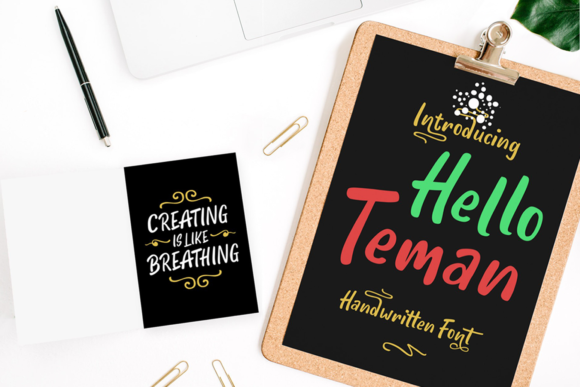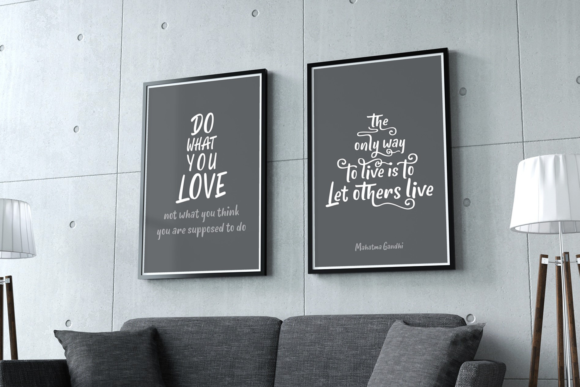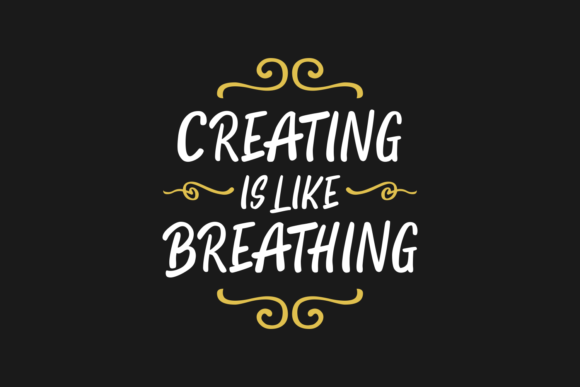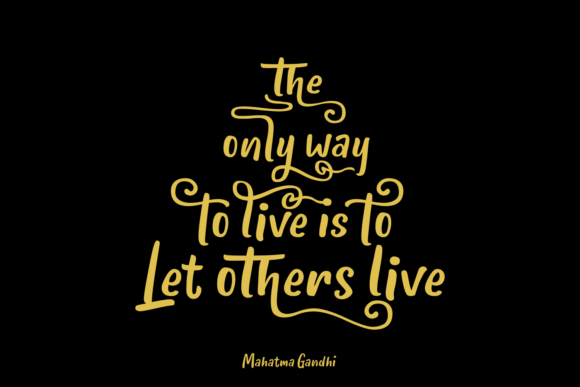
Hello Teman Font
Hello Teman is a fun and bold handwritten font, perfect for light-hearted designs and projects. This script comes with some alternate characters so you can create a beautiful hand-lettered feel with ease.